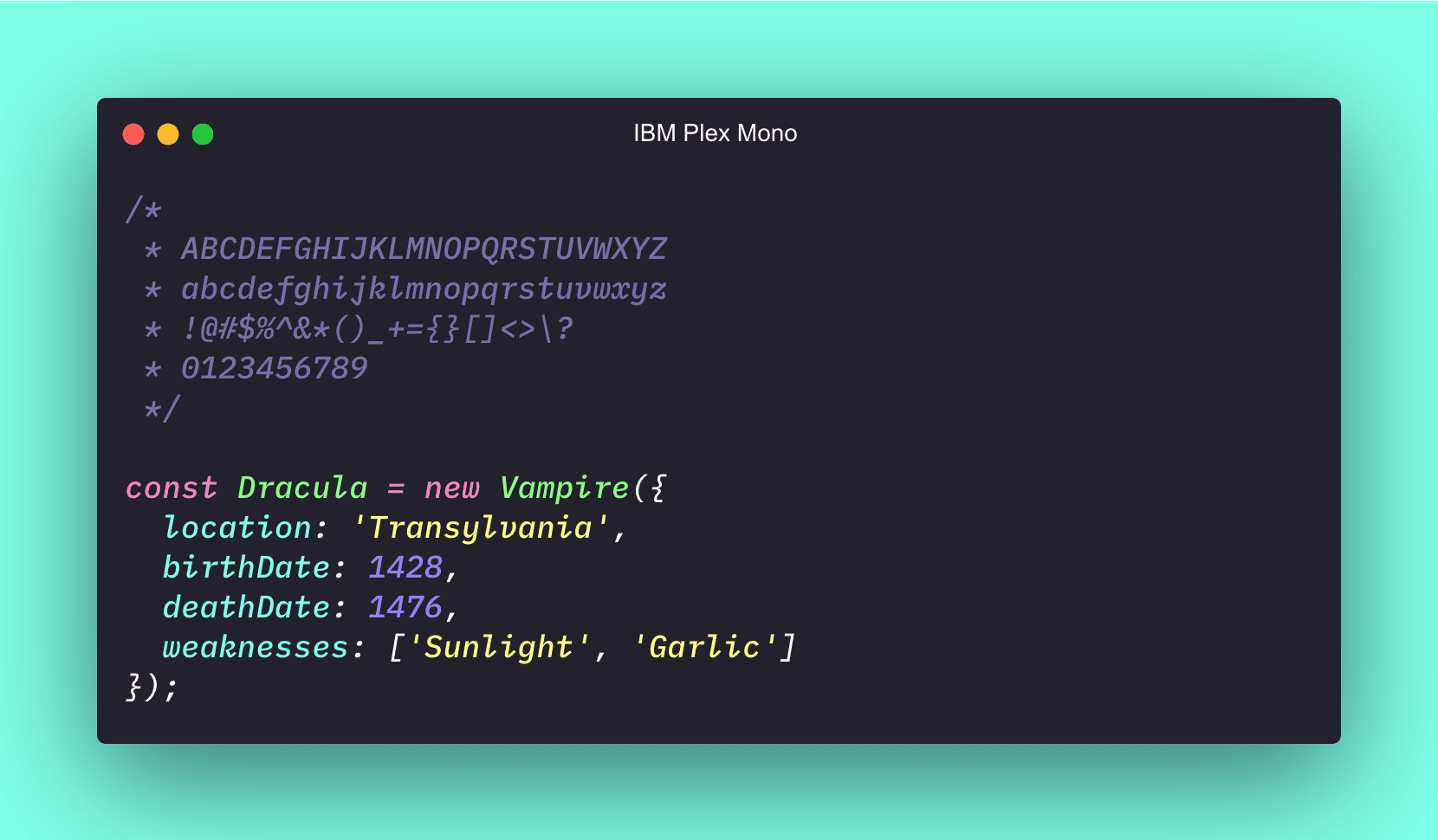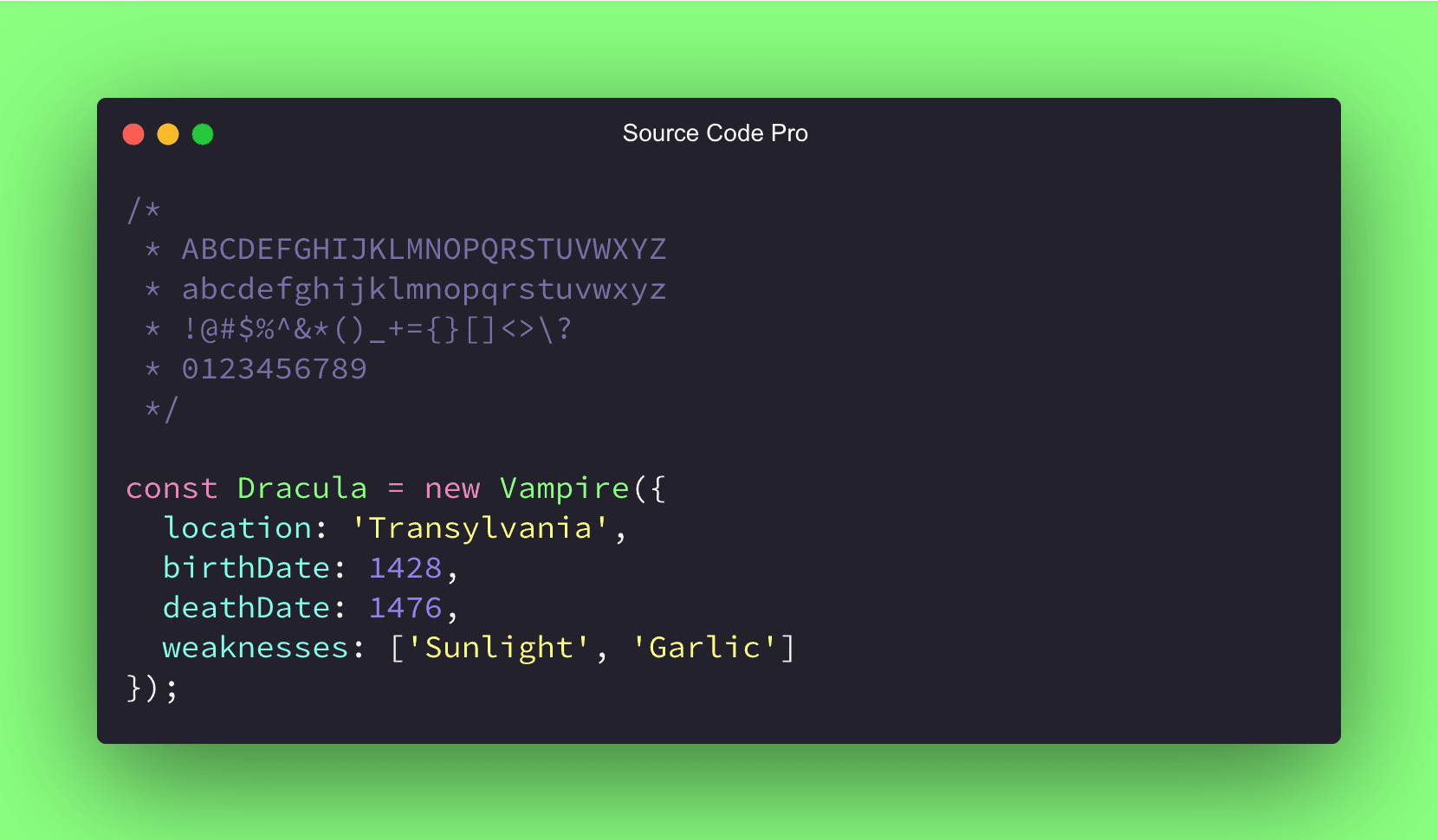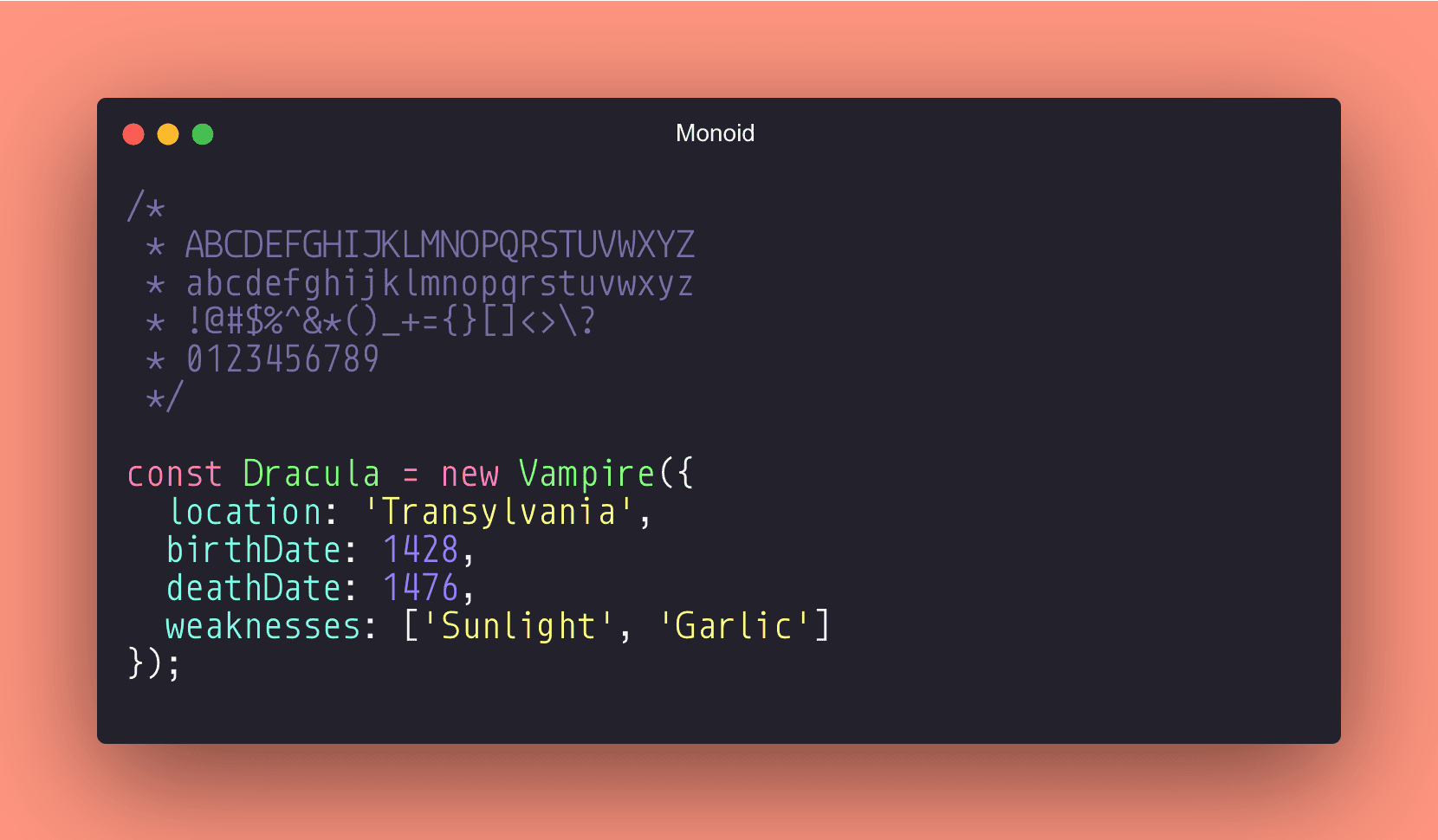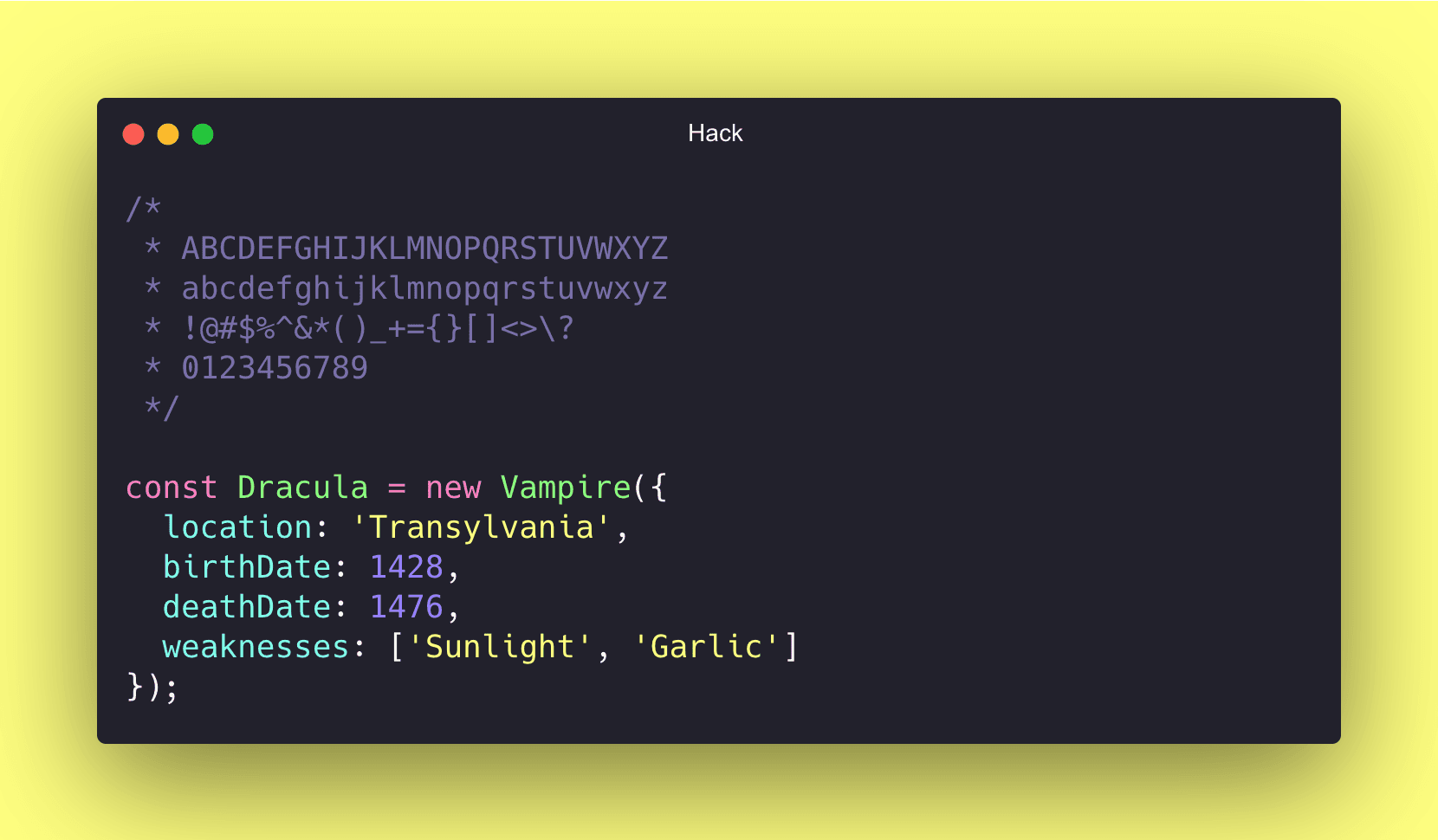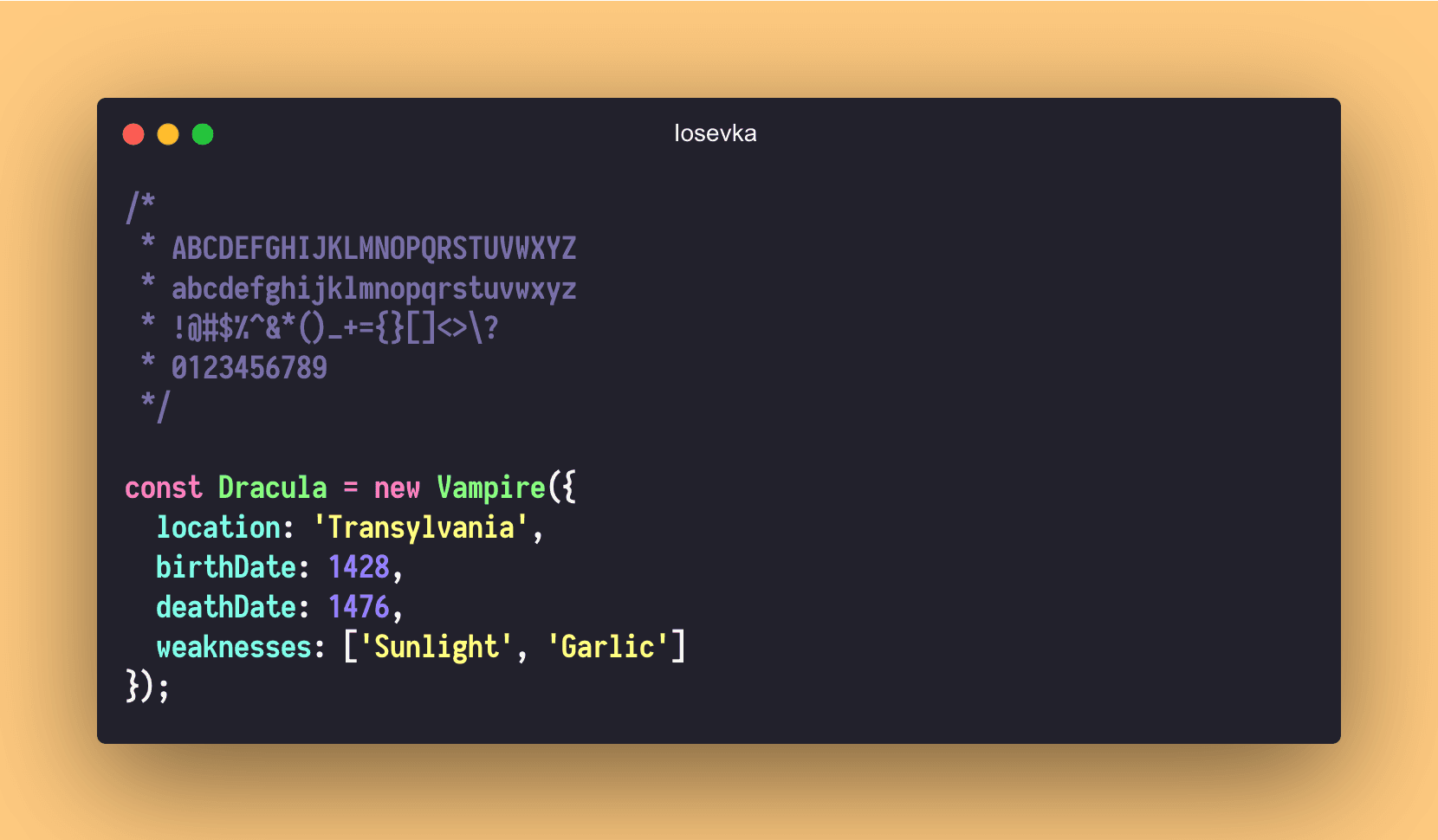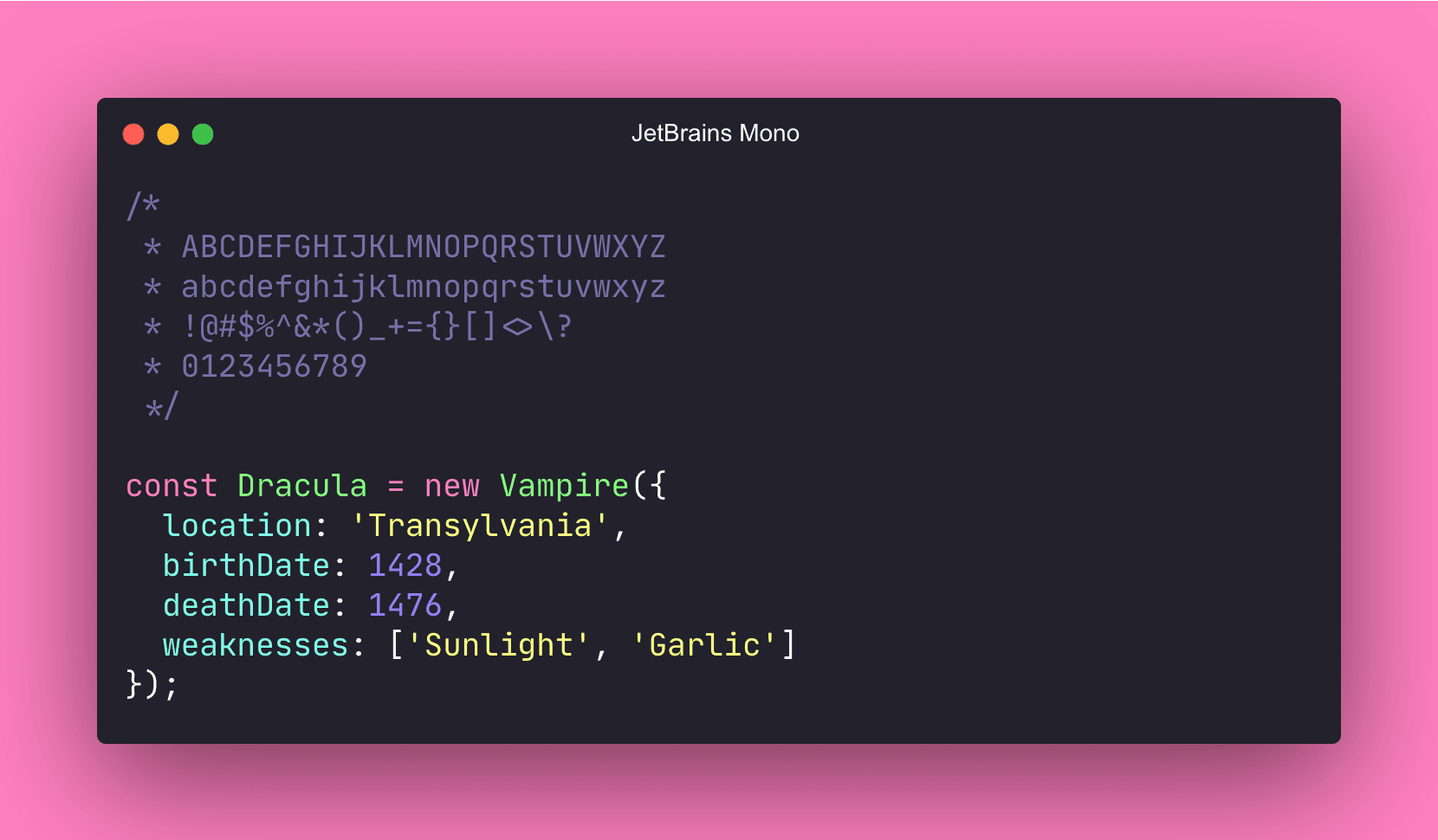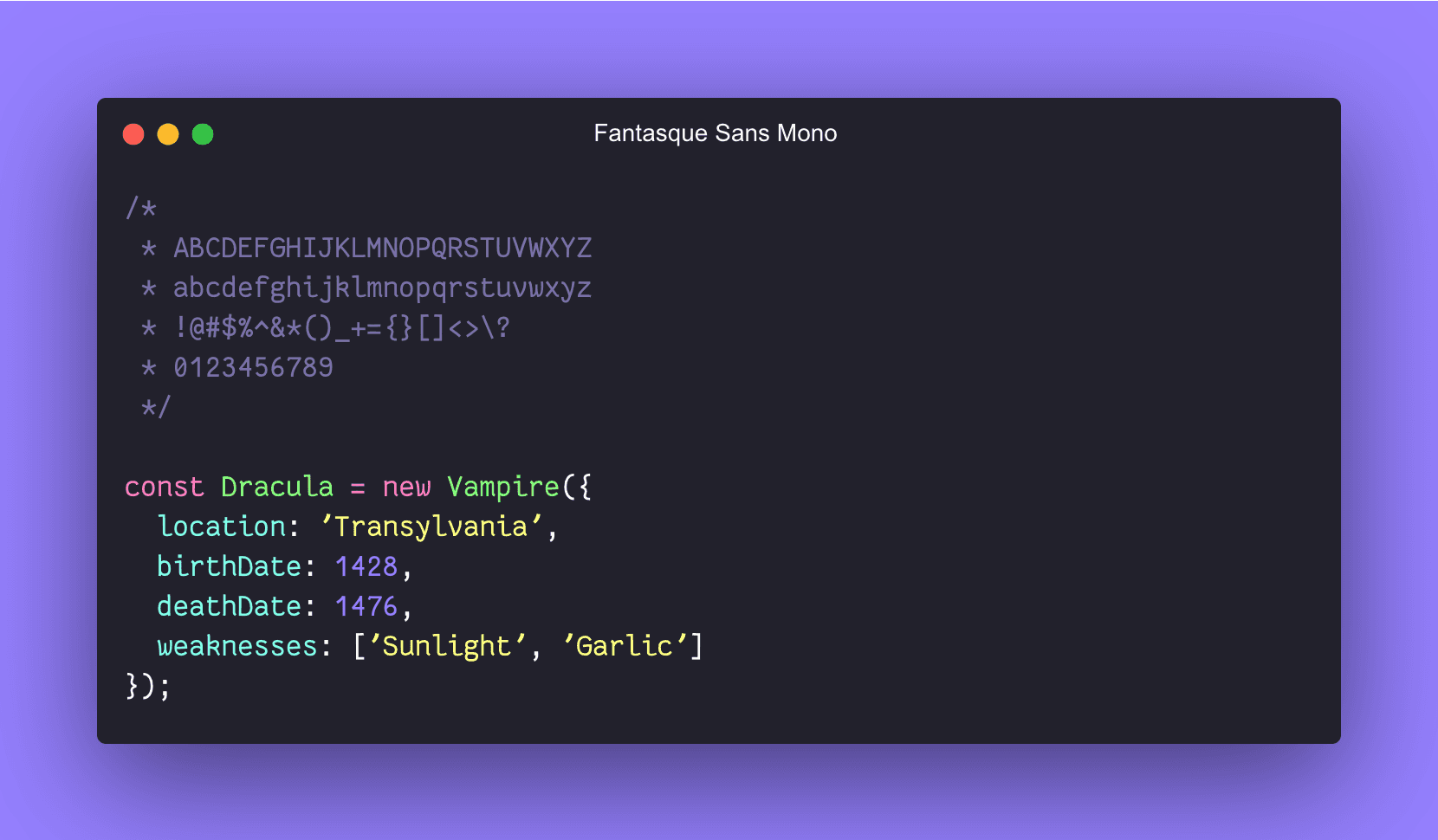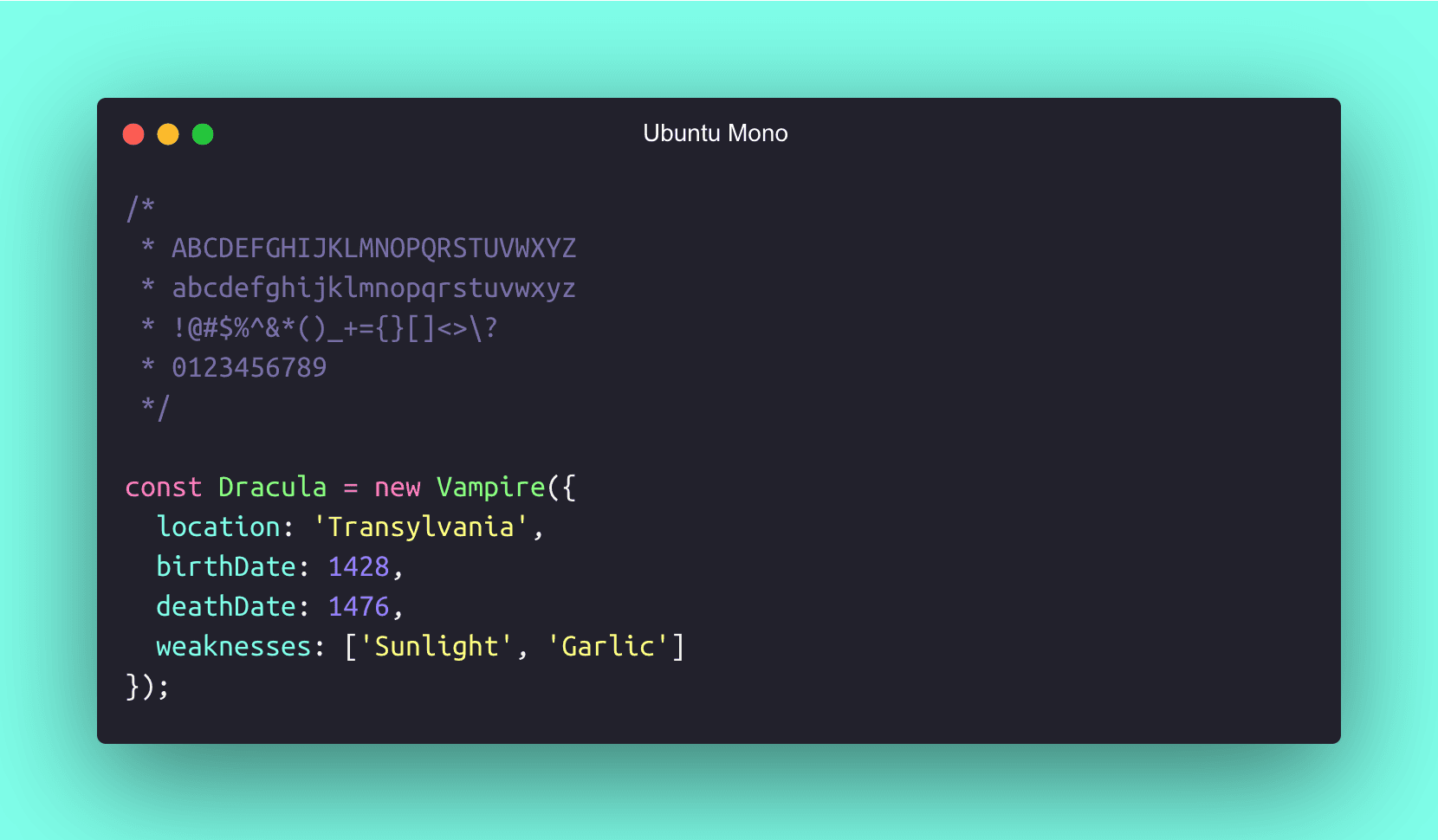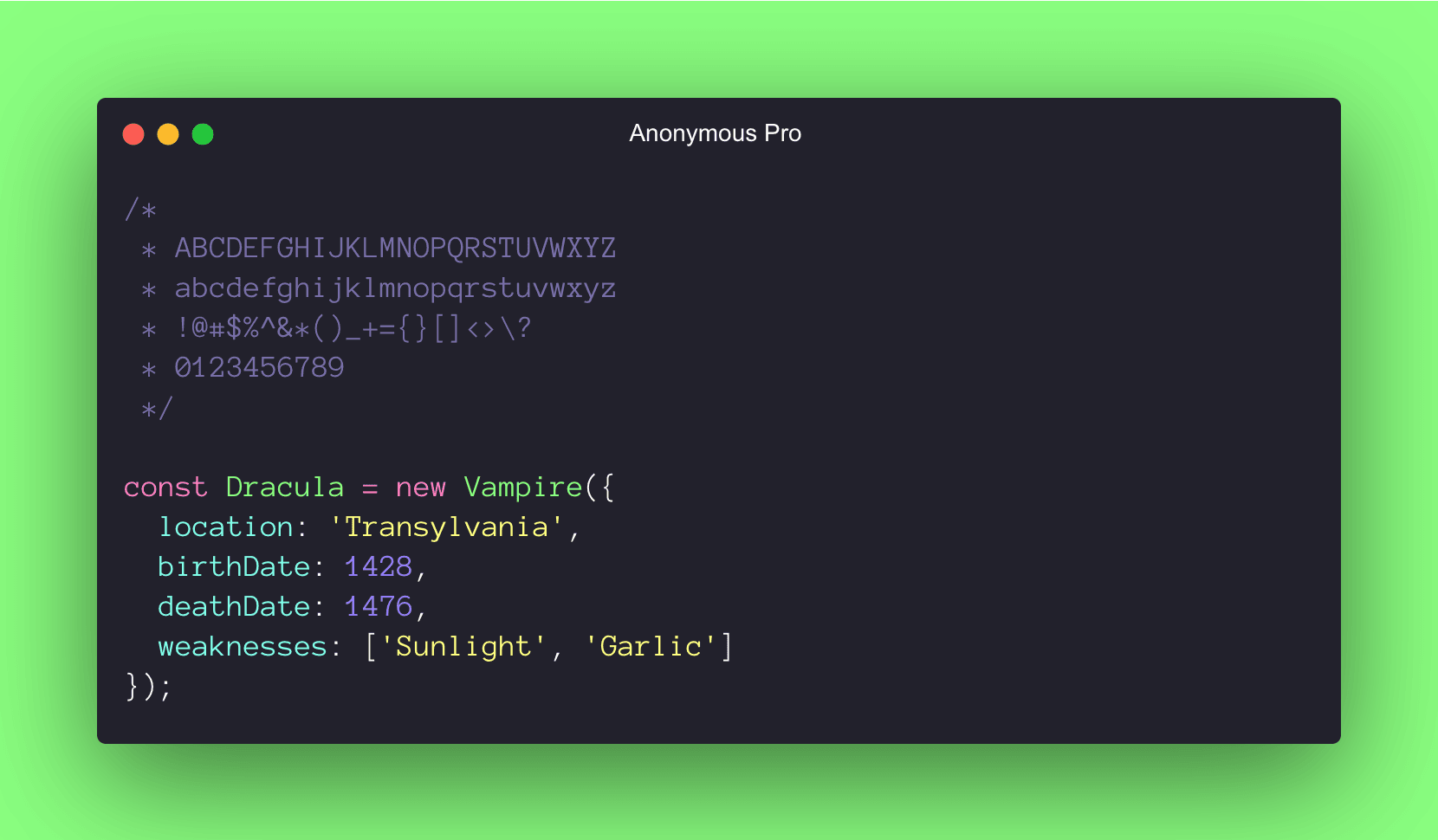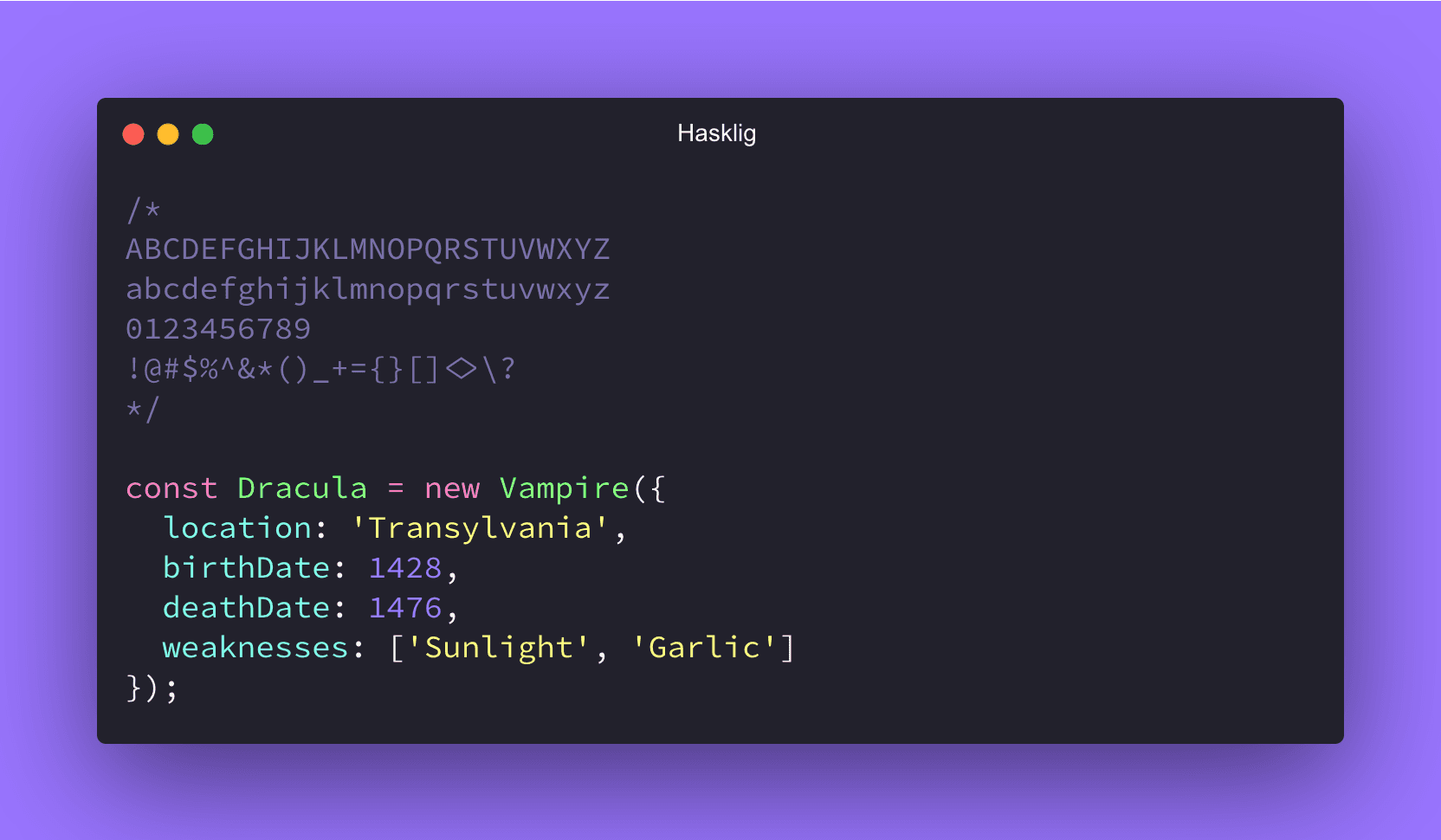
14 Best Free Fonts for Programming
We spend the entire day using code editors, terminal emulators, and other developer tools. Using a font that feels comfortable to your eyes can make a huge difference and improve your productivity.
§1. Fira Code
I’ve used Monaco for 10+ years until I finally met Fira Code. This font has more than 53,600 stars on GitHub, and it’s popular for a reason. Nikita Prokopov puts a lot of effort into the ligatures, which transforms characters into single logical tokens. It’s my favorite font nowadays.
Fira Code
§2. IBM Plex Mono
The Plex family was created to replace Helvetica as the IBM corporate typeface after more than 50 years. The italics look great, and it features very crisp and easy-to-read glyphs. Unfortunately, it doesn’t include ligatures.
IBM Plex Mono
§3. Source Code Pro
This was one of the first open source fonts made by Adobe. After its release in 2012, the font got extremely popular and was adopted by many developers. It preserves the design features and vertical proportions of Source Sans, but alters the glyph widths so that they are uniform across all weights.
Source Code Pro
§4. Monoid
If you’re one of those people who hate horizontal scrolling, this is the right font for you. It’s optimized for coding with bitmap-like sharpness at 12px/9pt even on low res displays. There’s also a Font Awesome integration called Monoisome.
Monoid
§5. Hack
This is one of the most customizable fonts of all. It has 1,573 glyphs, and you can change the details of each one yourself. Powerline glyphs are also included in the regular set.
Hack
§6. Iosevka
This font provides a slender outfit by default: glyphs are exactly 1/2em wide. Compared to the competitors, you could fit more columns within the same screen width. It also has two widths, Normal and Extended, so if you prefer more breeze between the character, go with the Extended version.
Iosevka
§7. JetBrains Mono
JetBrains, the company behind IntelliJ, WebStorm, and so many other IDEs, surprised us all in 2020 when it came with its own font. Their approach is to keep code lines to the length that developers expect, making each letter occupy more pixels. They do that by having characters remain standard in width, but the height of the lowercase is maximized.
JetBrains Mono
§8. Fantasque Sans Mono
Designed with functionality in mind, this is the kind of font that adds an extra touch to your code. Its handwriting-like fuzziness makes it a really cool option.
Fantasque Sans Mono
§9. Ubuntu Mono
Especifically created to complement the Ubuntu tone of voice. It has a contemporary style and contains characteristics unique to the Ubuntu brand that convey a precise, reliable, and free attitude. If you enjoy Linux but have to work in Windows or MacOS, this font gives you a little happiness.
Ubuntu Mono
§10. Anonymous Pro
The cool thing about this font is that characters that could be mistaken for each other like 0 (zero) vs O (capital O) are intentionally differentiated. It’s a family of four fixed-width fonts designed especially with coding in mind.
Anonymous Pro
§11. Inconsolata
An open source alternative to the proprietary Consolas font from Microsoft. It’s a monospace font designed for printed code listings, terminal emulators, and similar uses. Comes with ligatures for a great coding experience.
Inconsolata
§12. Victor Mono
This typeface is clean, crisp and narrow, with a large x-height and clear punctuation, making it legible and ideal for code. It comes in seven weights and Roman, Italic and Oblique styles. It also has optional semi-connected cursive italics and programming symbol ligatures.
Victor Mono
§13. Space Mono
Developed explicitly for use in headline and display typography, the letterforms infuse a geometric slab core with novel over-rationalized forms. It supports a Latin Extended glyph set, enabling typesetting for English and other Western European languages.
Space Mono
§14. Hasklig
Based on Source Code Pro, this font solves the problem the way typographers have always solved ill-fitting characters, which co-occur often: ligatures. The underlying code stays the same - only the representation changes.
Hasklig
§What’s your favorite one?
Fonts, just like themes, are a very personal subject. Different developers like different fonts. Some love ligatures, others hate. Some love italics, others hate.
Hopefully, this compilation was useful to identify what works best for you. Give it a shot, try them for a couple of days, and you’ll notice the difference.